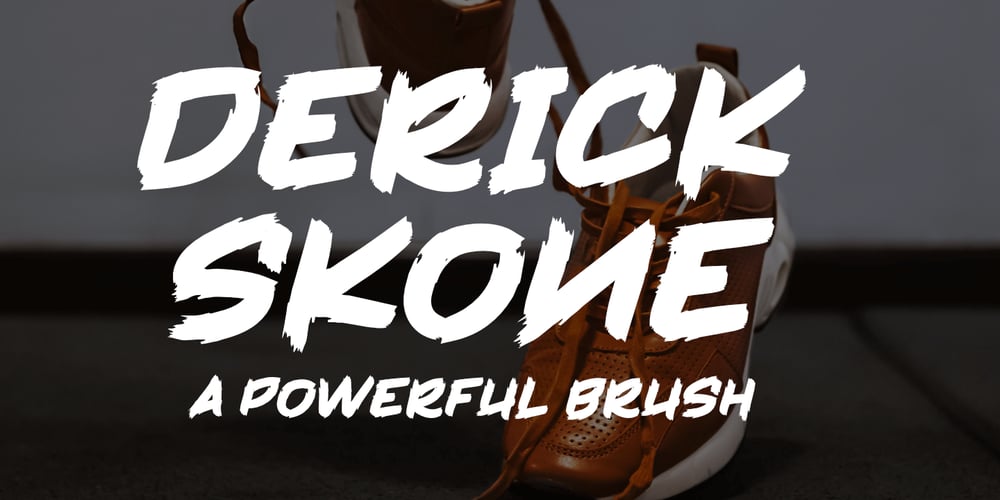
Derick Skone
Derick Skone font
Derick Skone Font Family was designed by Toni Dzulham and published by Dumadi. Derick Skone contains 1 styles and family package options. Derick Skone is a brush font created with a brush application. This design font is perfect for meeting the needs of designers in perfecting their projects. Derrick Skone is suitable for magazine design, poster design, event title design, sport event titles, movie poster titles, t-shirt designs, game titles, youtube cover titles, and more.Maximize your business with the right fonts.best regards, Toni Dzulham – Dumadistyle 2020